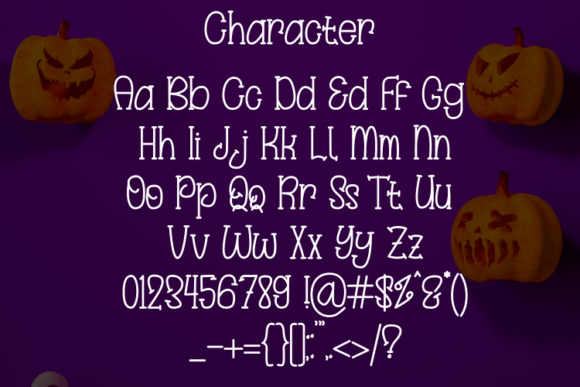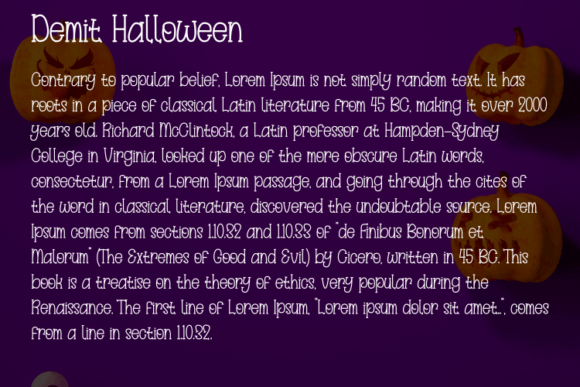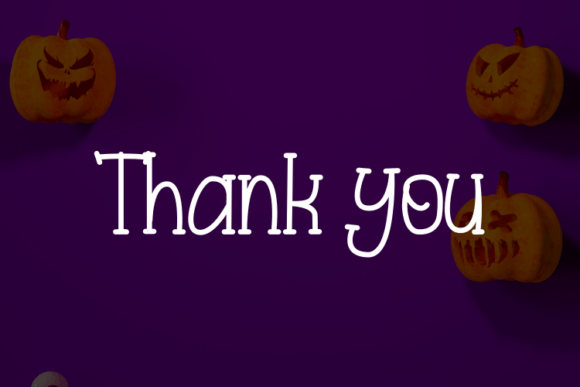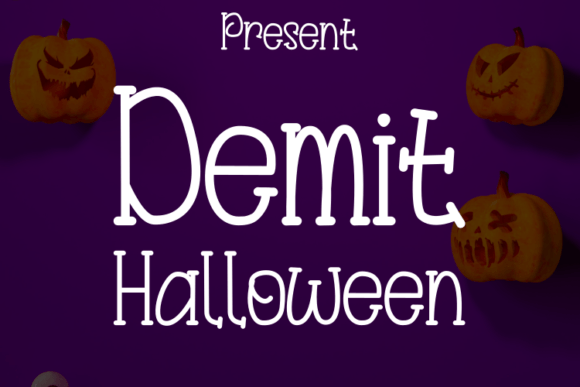
Unleash the Spoirit of Elegance with Demit Halloween Font
As the spookiest time of the year approaches, designers and crafters are on the lookout for the perfect typography to elevate their Halloween-themed projects. If you’re seeking a font that exudes elegance and sophistication, look no further than the Demit Halloween Font. This stunning serif typeface boasts a simple yet modern design, making it an ideal choice for a wide range of applications.
What Makes Demit Halloween Font So Special?
Demit Halloween is a carefully crafted serif typeface that strikes the perfect balance between simplicity and modernity. Its clean lines, subtle curves, and elegant proportions make it a versatile font suitable for various design projects. Whether you’re working on a luxurious logo, book or movie title, fashion brand, magazine, clothing, or quotes, this font is sure to impress.
Key Features of Demit Halloween Font
- Simple yet Modern Design: Demit Halloween Font features a sleek and contemporary design that will add a touch of sophistication to your projects.
- Serif Typeface: The font’s serif style adds a level of elegance and refinement, making it perfect for high-end designs.
- Versatile: Use Demit Halloween Font for a wide range of applications, from logos and titles to magazines and quotes.
- Elegant and Luxurious: The font’s refined design makes it an excellent choice for luxury brands, high-end fashion, and sophisticated designs.
Demit Halloween Font is a valuable addition to any designer’s or crafter’s toolkit. Its unique blend of simplicity and elegance makes it an excellent choice for:
- Logo Design: Create a lasting impression with a luxurious logo that showcases your brand’s personality.
- Book and Movie Titles: Add a touch of sophistication to your book or movie titles with this elegant font.
- Fashion Brands: Elevate your fashion brand with a refined and luxurious font that exudes high-end style.
- Magazines and Quotes: Use Demit Halloween Font to add a level of sophistication to your magazine layouts and quotes.
Tips for Using Demit Halloween Font
To get the most out of Demit Halloween Font, consider the following tips:
- Pair with Other Fonts: Combine Demit Halloween Font with other fonts to create a unique and visually appealing design.
- Experiment with Colors: Try out different color schemes to find the perfect combination that complements your design.
- Play with Sizes: Experiment with different font sizes to create visual hierarchy and add depth to your design.
Demit Halloween Font is a stunning serif typeface that offers a perfect blend of simplicity and elegance. Its versatility, luxurious feel, and modern design make it an excellent choice for designers and crafters looking to elevate their Halloween-themed projects. Whether you’re working on a logo, book title, fashion brand, or magazine, this font is sure to impress. So, why wait? Unleash the spirit of elegance with Demit Halloween Font and take your designs to the next level.